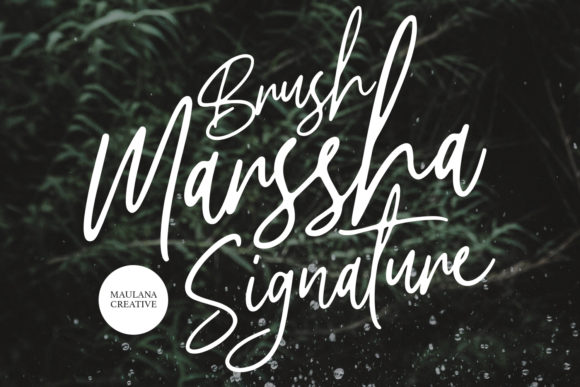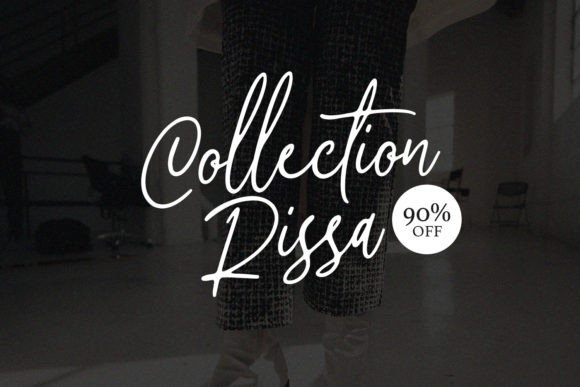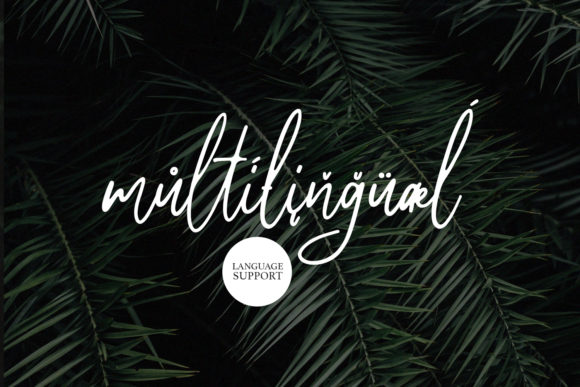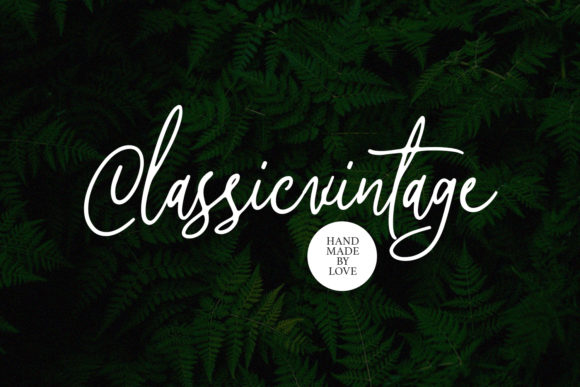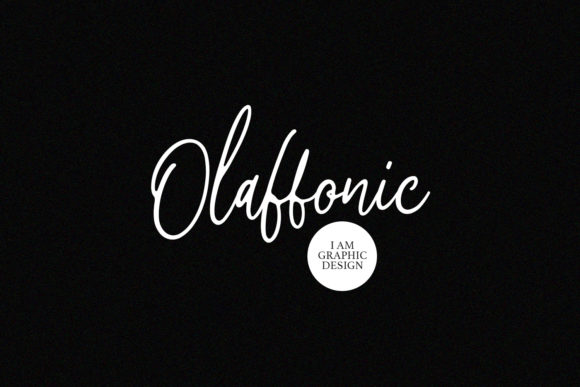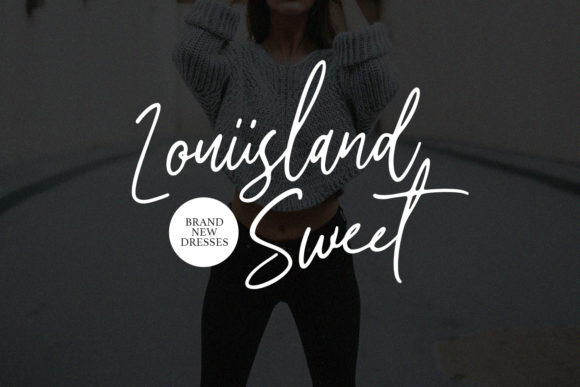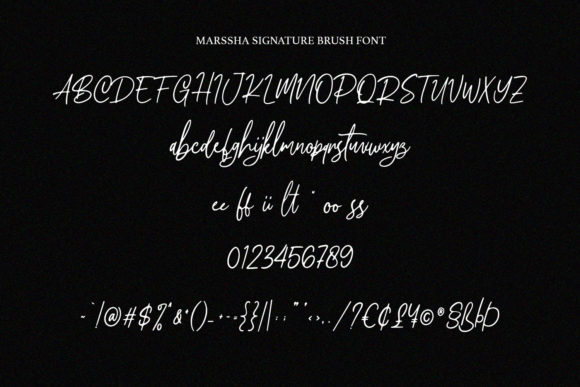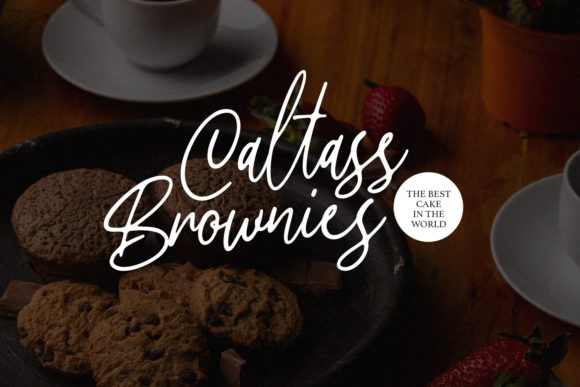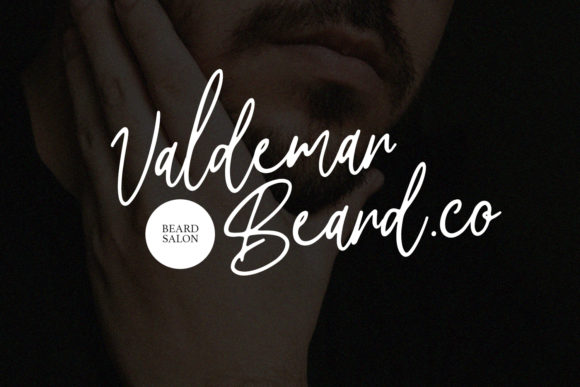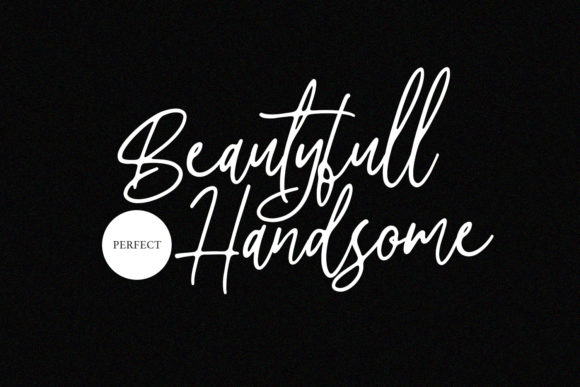
Marssha Font
About Marssha Font
Marssha is the ideal font for giving your next design a distinct, handwritten feel. Fall in love with its authentic charm!